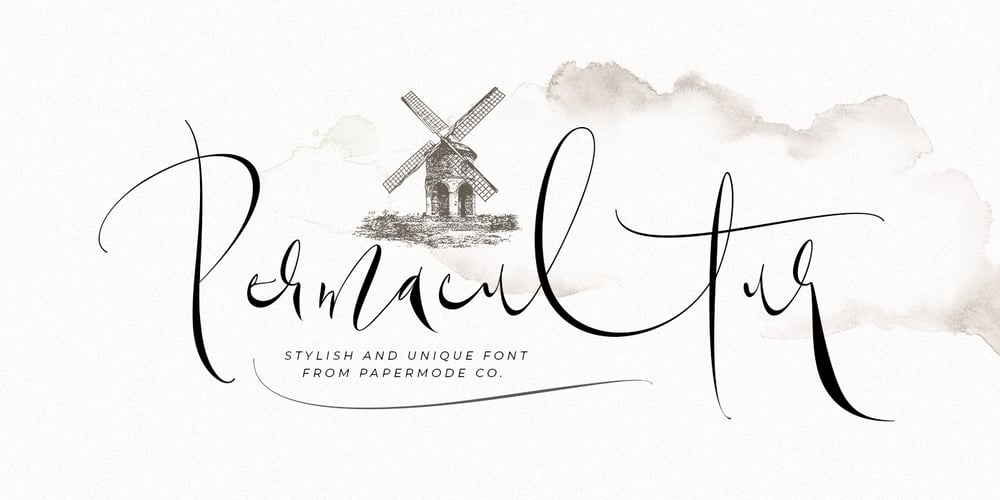
Permacultur Font Family was designed by Mira Kartika Sari and published by Papermode Co. Permacultur contains 1 styles and family package options. Permacultur, letters to connected each other to convey elegance and style. Thin and thickness, feminine and friendly. Permacultur will work perfectly for fashion, e-commerce brands, trend blogs, invitation, product packaging, hand-written quotes, greetings cards, labels, logos, magazines, books, greeting/wedding cards, packaging, stationery, novels, labels or any type of advertising purpose.Includes multilingual support and special ligaturesIf you do not have programs that support OpenType features like Adobe Illustrator and CorelDraw X Versions, you can access all alternative flying machines using Font Book (Mac) or Character Map (Windows).